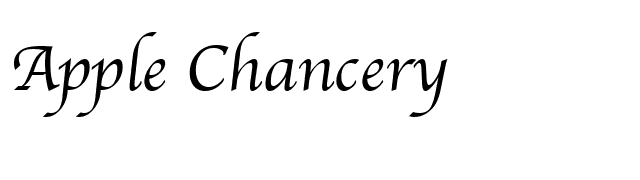
Is apple chancery a free font? Zapf chancery font free download. Apple chancery is a script typeface designed by apple that comes bundled with their operating system.
The design is based off the chancery style of handwriting and features unconnected letters. All the technologies introduced by apple corp. If you are looking for the free version of apple chancery here it is.